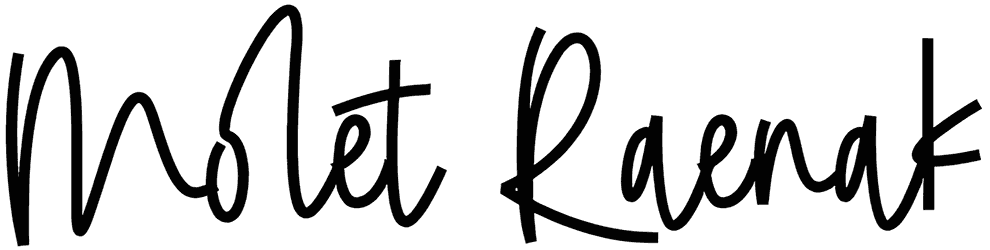
Molet Raenak Font
For creating greeting cards, posters, romantic writing, or even editing on girlish apparel, a fast handwritten font with a natural aesthetic touch is required to enhance your typography through its friendly and intimate design. Today, Molet Raenak arouses a crazy marker style to make your writing design cheerful. In the company of a complete set of alphabets, it makes every effort to bring satisfying writing ends.